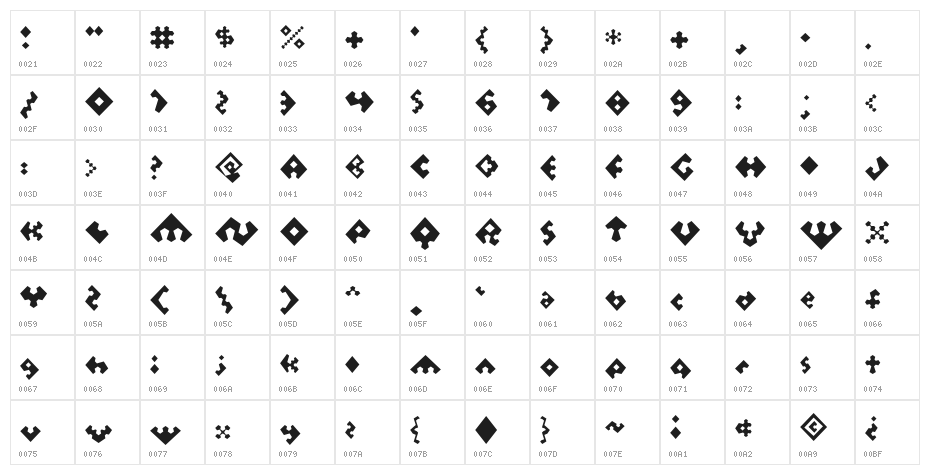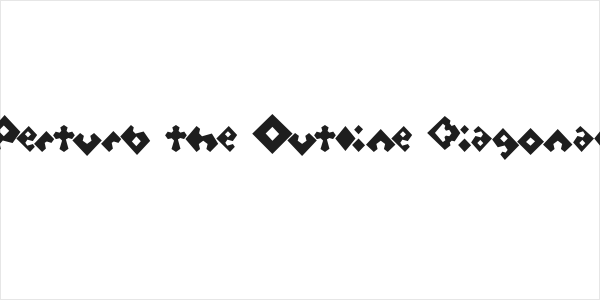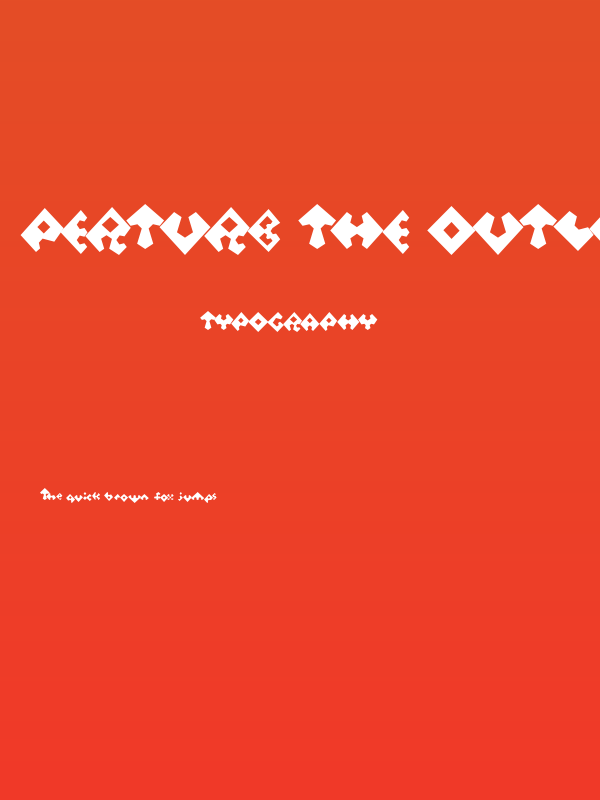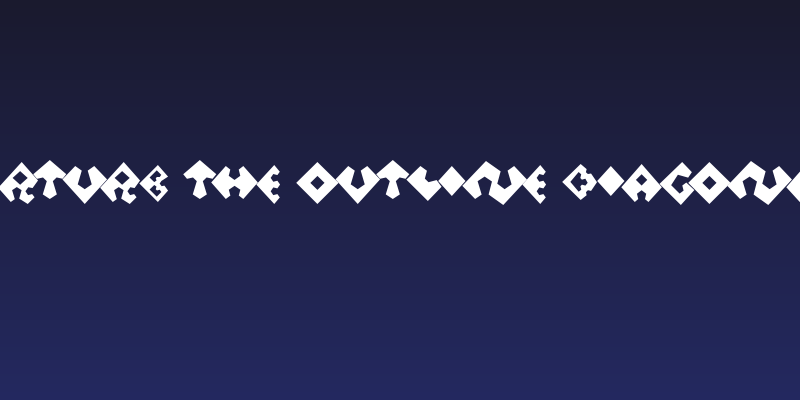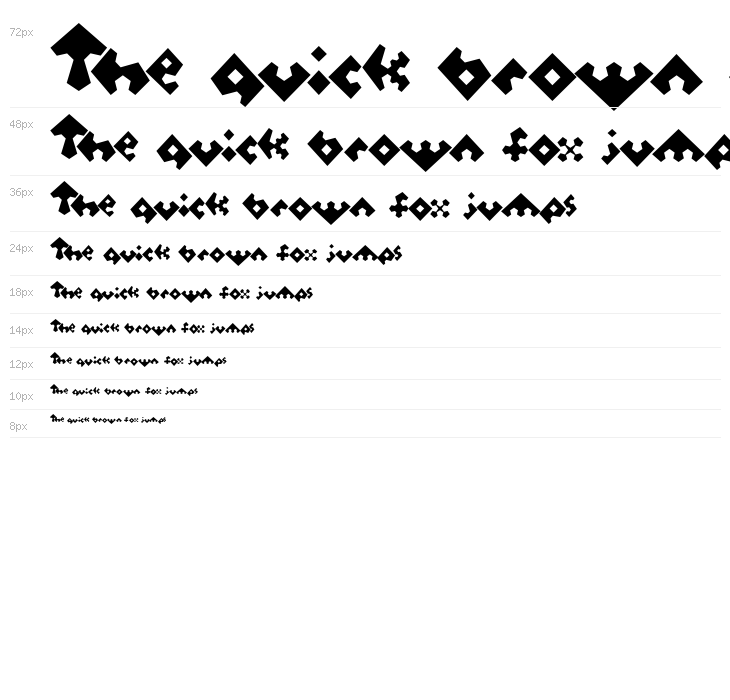
Perturb the Outline Diagonal Font
Perturb the Outline Diagonal Description
This font features a highly geometric and abstract design, characterized by its bold, angular shapes and intricate cut-out patterns. Each character is crafted with a unique, jagged outline that gives it a dynamic and edgy appearance. The font's style is reminiscent of digital art and modern graphic design, making it stand out with its unconventional and artistic flair. The uppercase and lowercase letters maintain a consistent aesthetic, while the numbers and special characters follow the same design principles, ensuring a cohesive look across all elements. This font is ideal for projects that require a bold statement and a modern, artistic touch.
| Proposed Projects | Ideal for digital art, modern graphic design, posters, album covers, and branding that seeks a bold and artistic statement. |